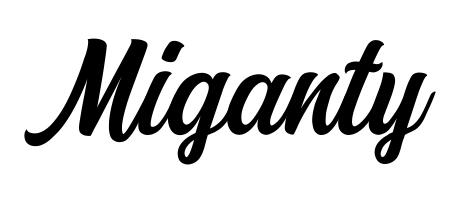
Miganty
Miganty is a stylish, cursive script font. Its flowing letters possess a vintage charm, reminiscent of classic Hollywood signage or 1950s advertising. The "M" is particularly graceful, with a gentle curve, while the "y" has a playful flourish. Overall, it conveys a sense of elegance and sophistication with a touch of retro flair.